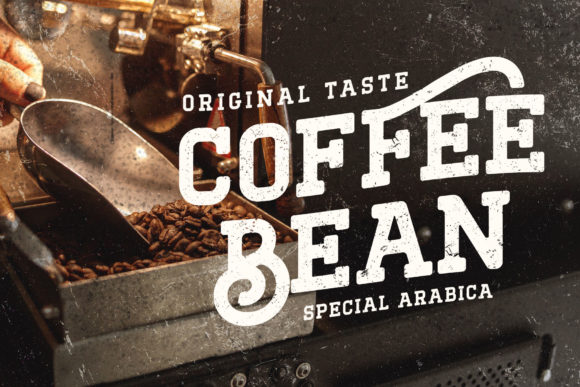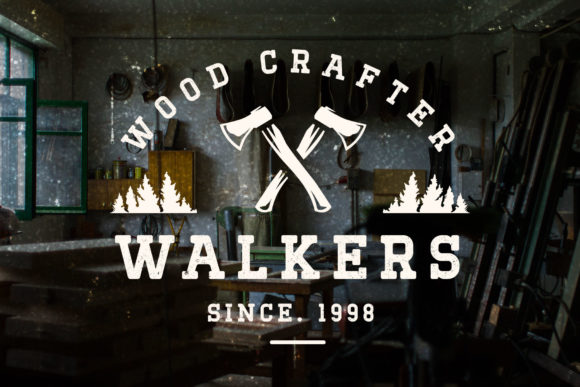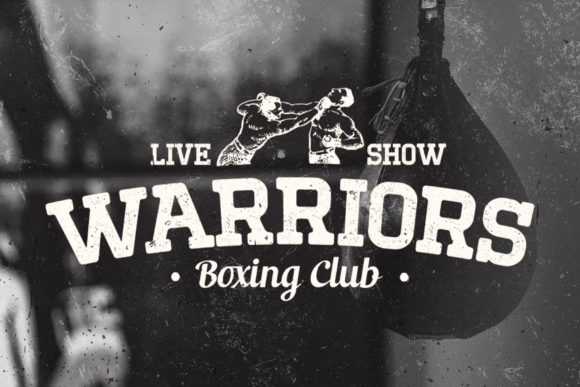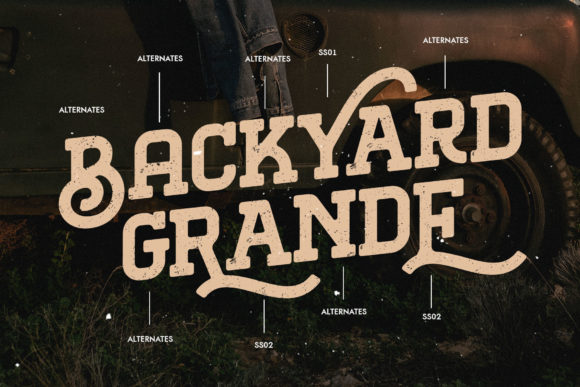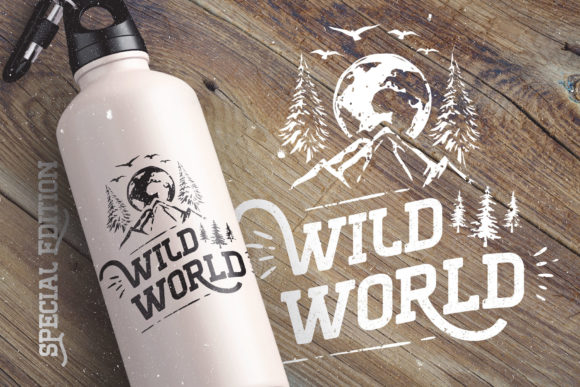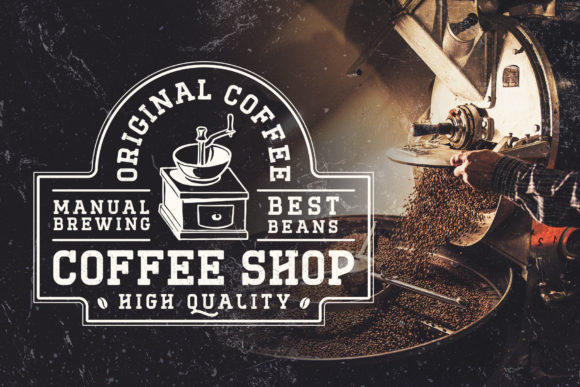
Introduction to Ranmor Font
Ranmor is a bold, vintage styled and thick lettered slab serif font.
It is PUA encoded which means you can access all glyphs and swashes with ease Add it confidently to your favorite creations and let yourself be amazed by the outcome generated.
Key Features of Ranmor Font
Why Choose Ranmor Font?